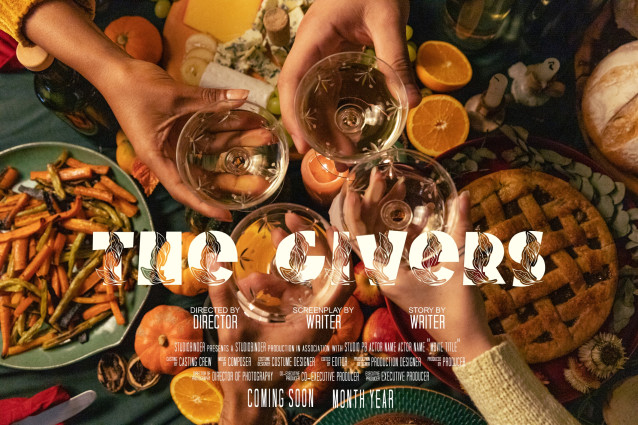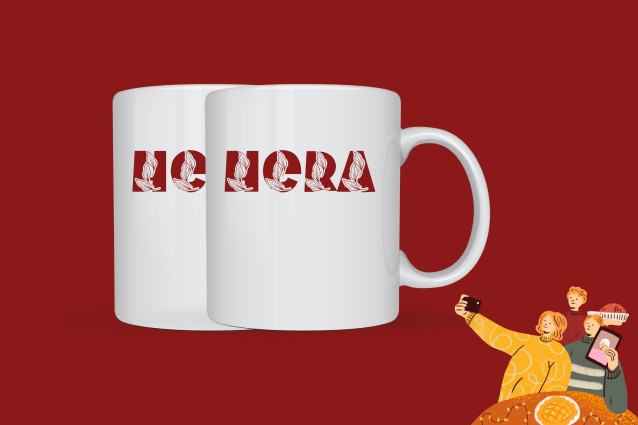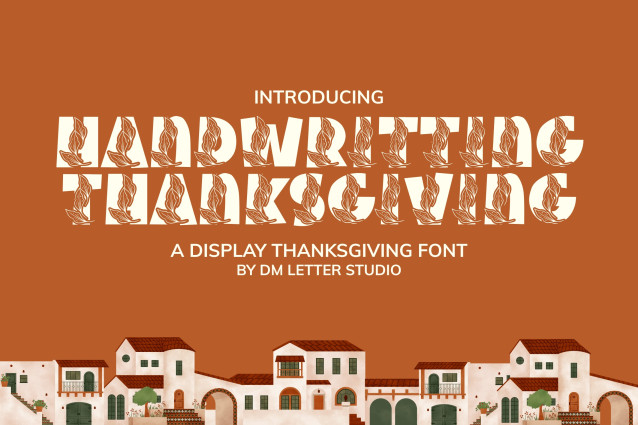
Handwriting Thanksgiving Font
Handwriting Thanksgiving is a cozy, hand-drawn script font that captures the heartwarming essence of the Thanksgiving season. With its playful curves and casual elegance, this font is perfect for seasonal greeting cards, holiday menus, rustic signage, and heartfelt social media posts. Whether you’re designing for a festive feast or a gratitude-themed project, this font brings charm and personality to every letter.